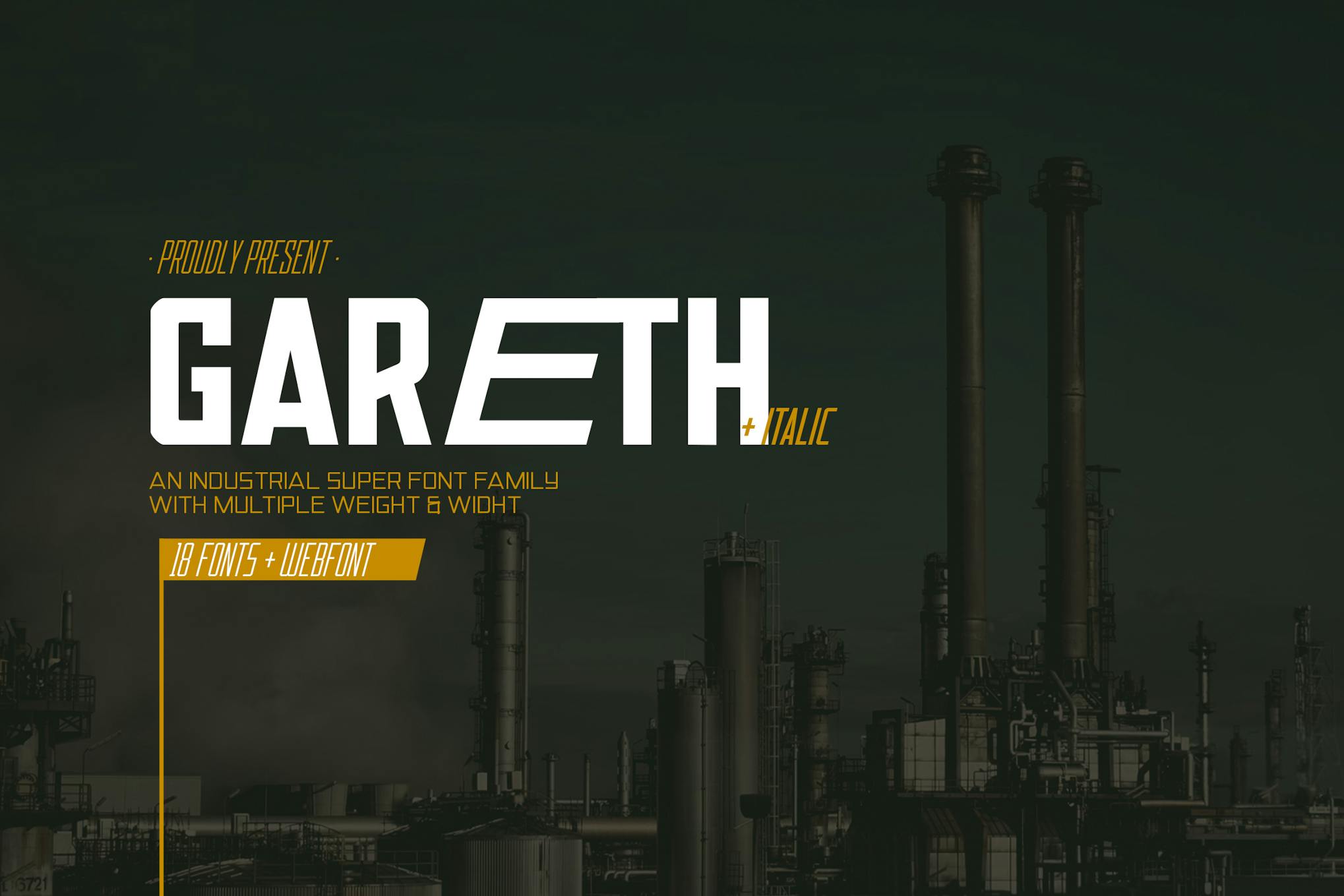
Gareth Font Family
Gareth Font Family is perfect for professional branding projects, corporate communications, editorial design, modern web typography, clean logo creation, business presentations, sophisticated magazine layouts, contemporary advertising campaigns, and versatile brand identity systems.
What makes Gareth Font Family exciting is its exceptional balance between professional reliability and distinctive character that creates memorable brand communications without sacrificing readability or functionality. This versatile typeface features carefully refined letterforms, optimized spacing, and subtle personality details that enhance visual appeal while maintaining corporate credibility. The font's adaptable nature and contemporary aesthetic make it ideal for brands that need typography that can evolve with their growth while consistently communicating competence, innovation, and trustworthy professionalism across all touchpoints.
Gareth Font Family includes comprehensive weight variations: Thin, ExtraLight, Light, Regular, Medium, SemiBold, Bold, ExtraBold, and Black, each available in both upright and italic styles. This extensive collection provides 18 meticulously crafted fonts that enable designers to create sophisticated typographic hierarchies with precise control over brand expression and communication effectiveness across complex organizational systems.
Design professionals value Gareth Font Family for its reliability and comprehensive functionality. The font's neutral character and optimized metrics work beautifully in both detailed text applications and prominent display settings. Its professional aesthetic appeals to diverse audiences while maintaining the flexibility needed for long-term brand evolution and market adaptation.
Whether used for established corporate rebranding or emerging business development, Gareth Font Family consistently delivers superior typography that communicates professionalism, reliability, and contemporary sophistication that resonates with stakeholders seeking competent and trustworthy organizational partnerships.